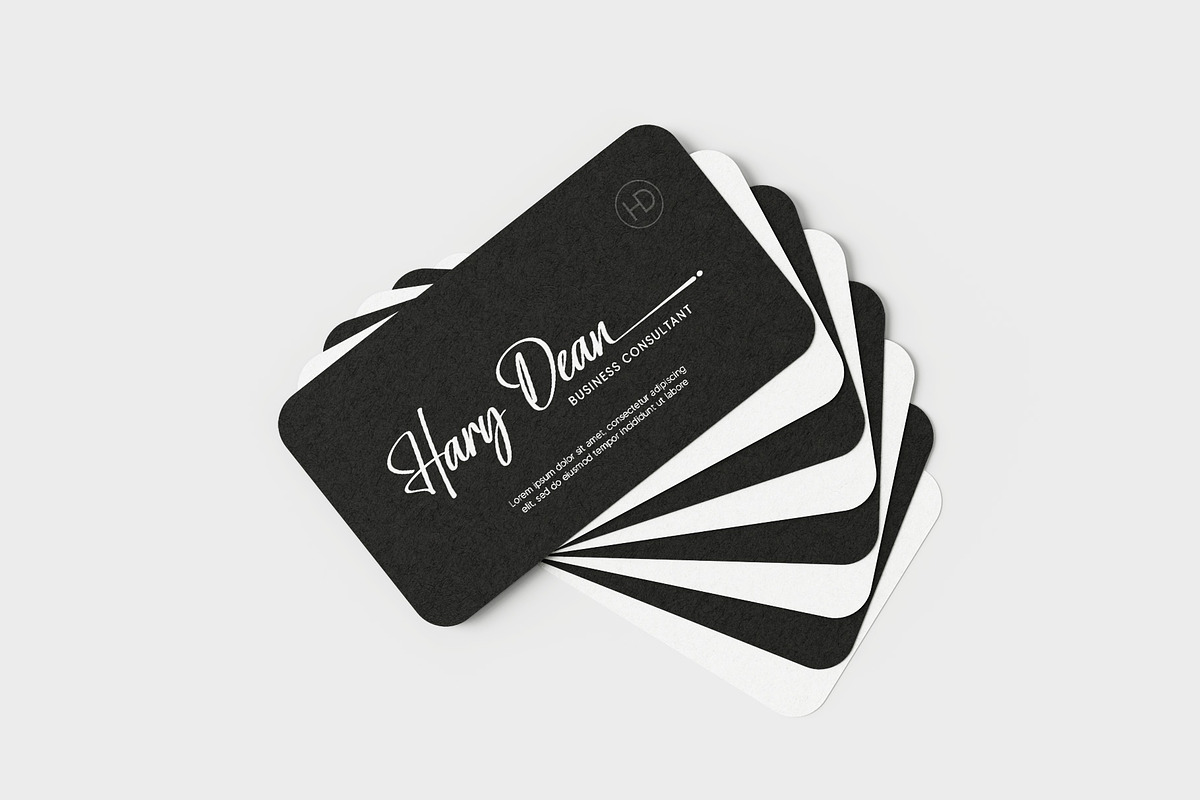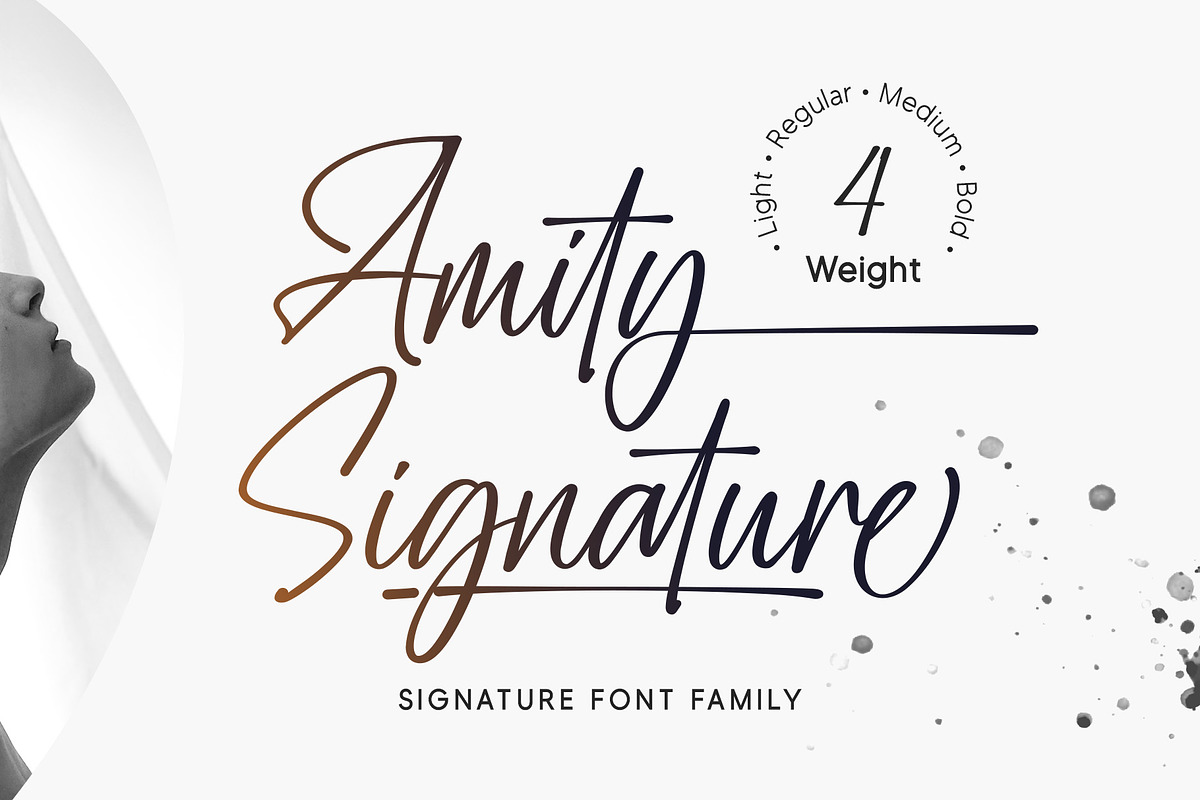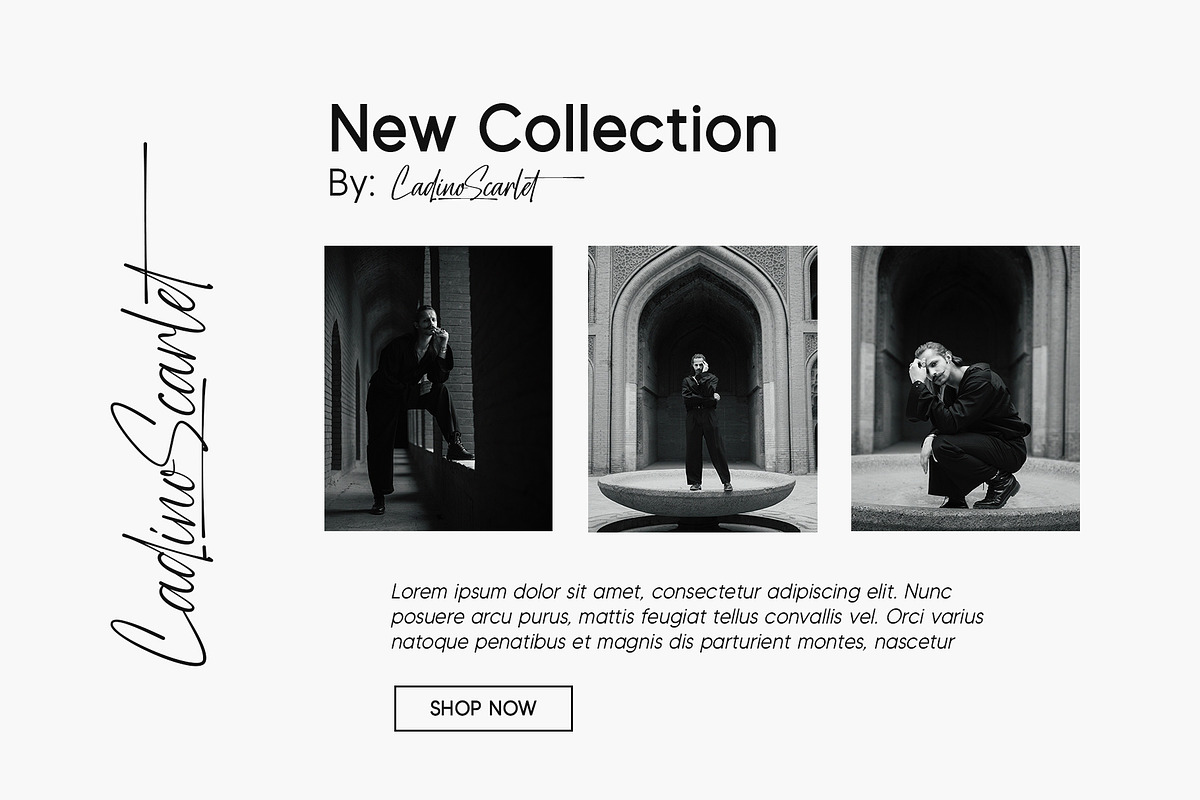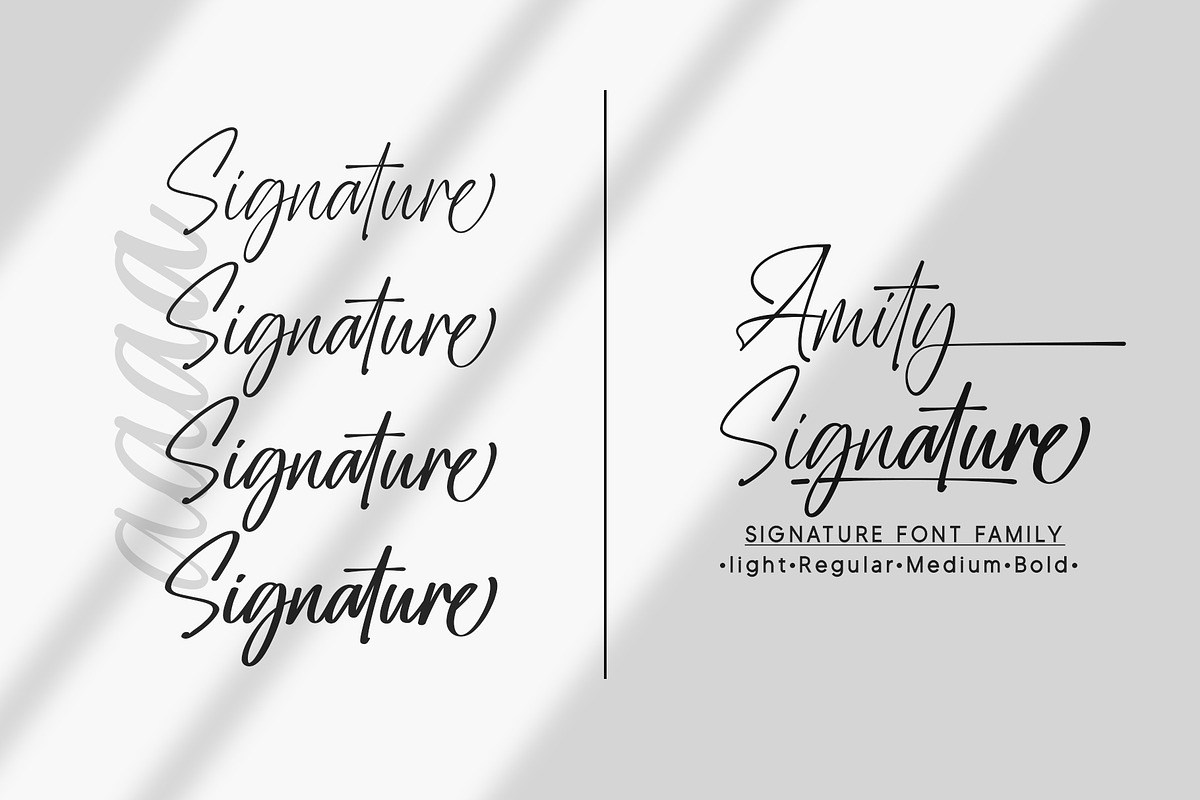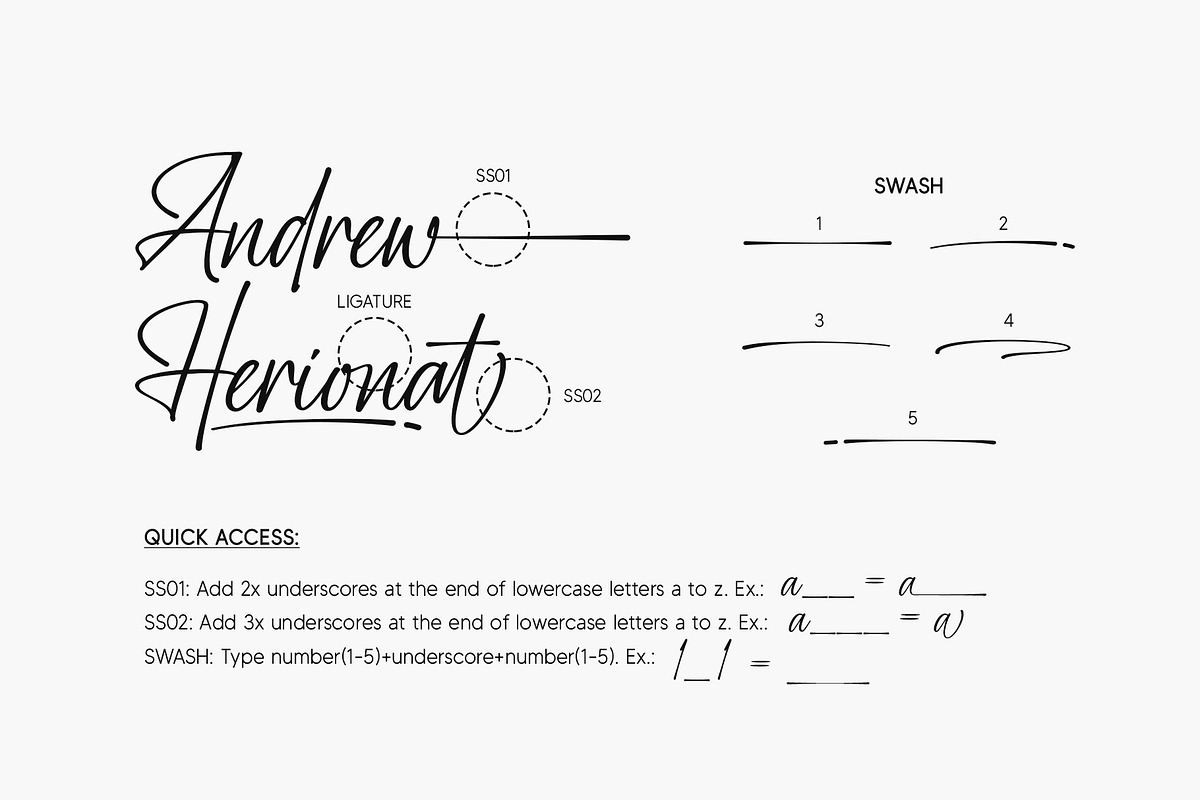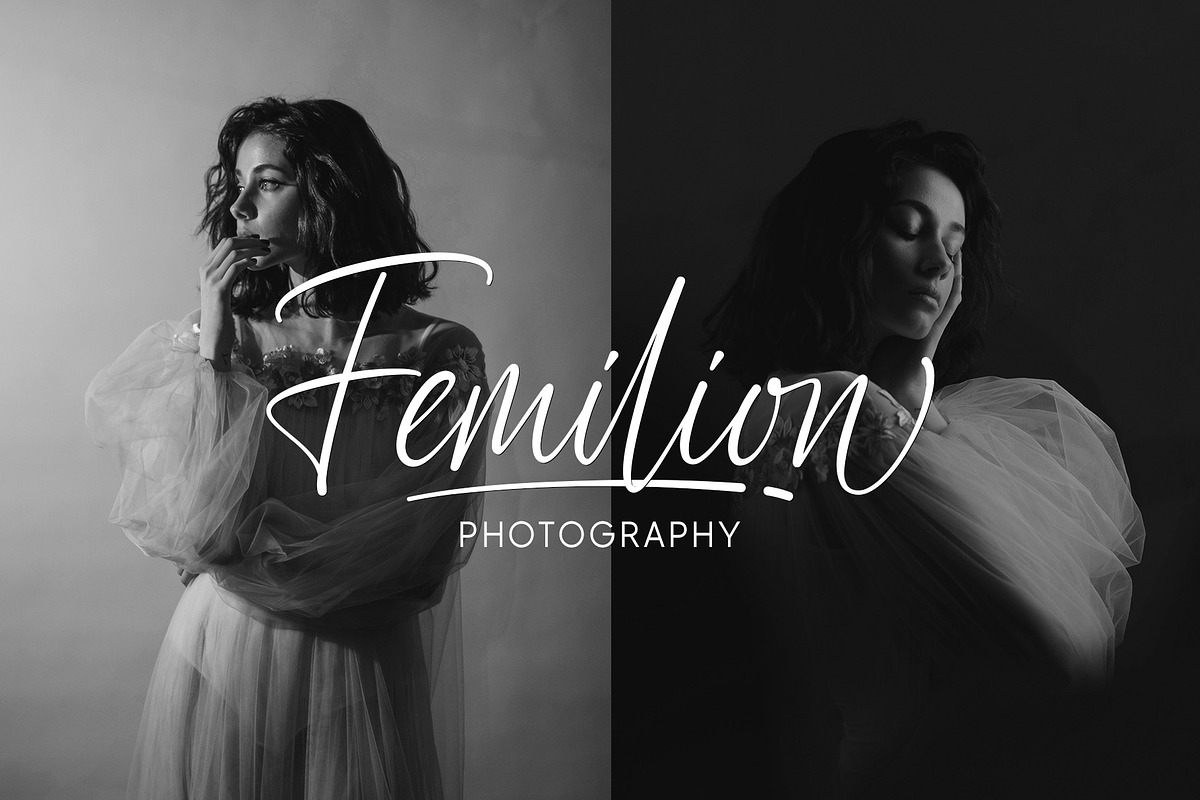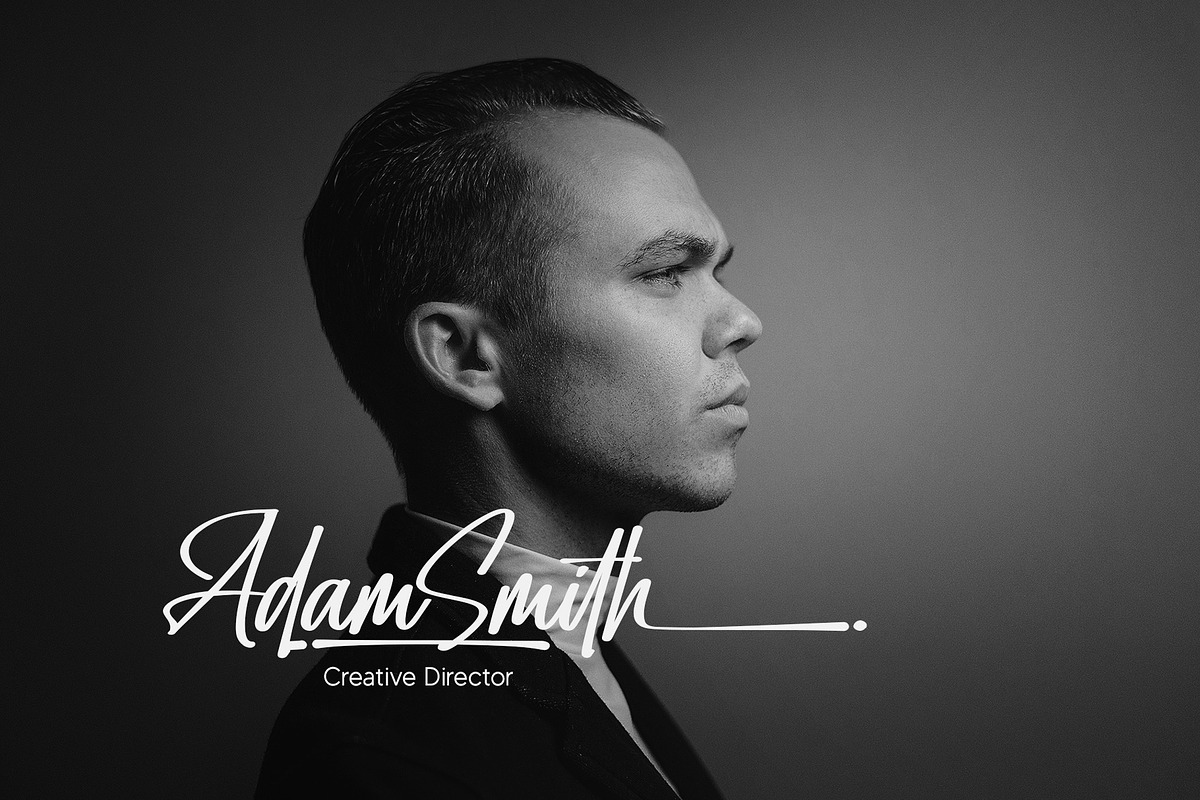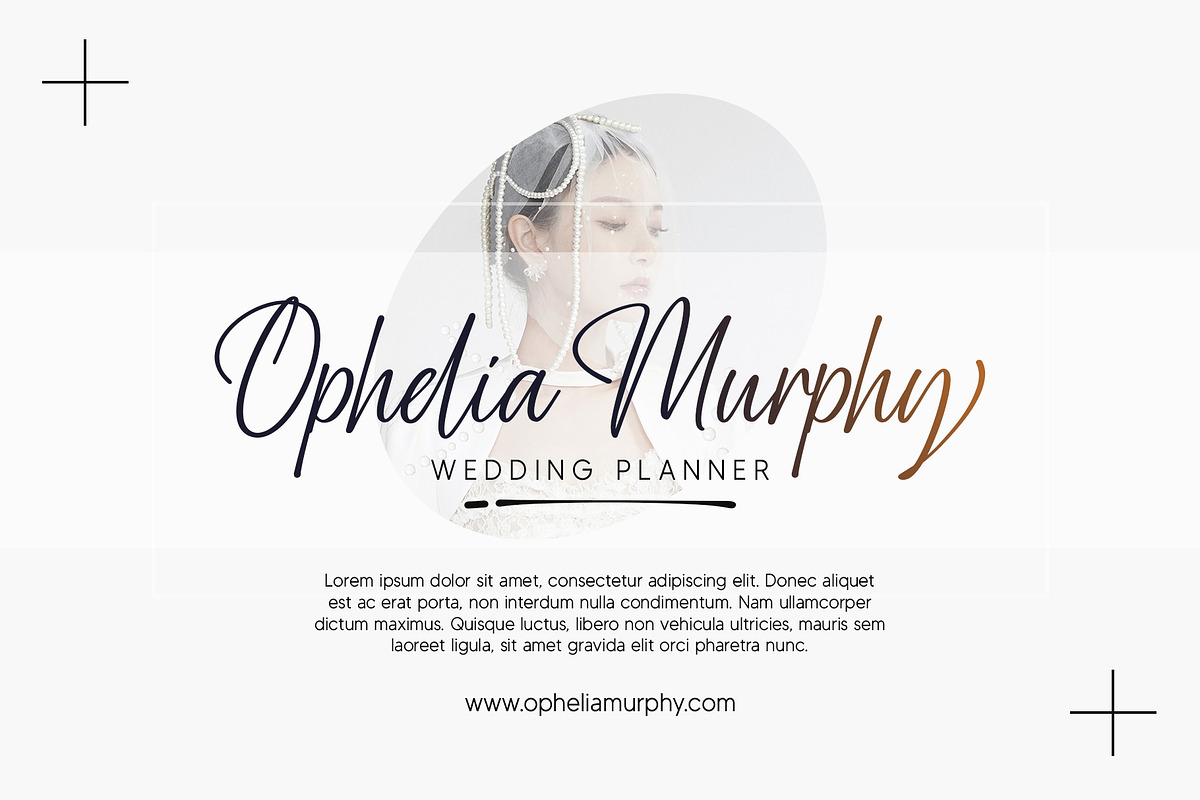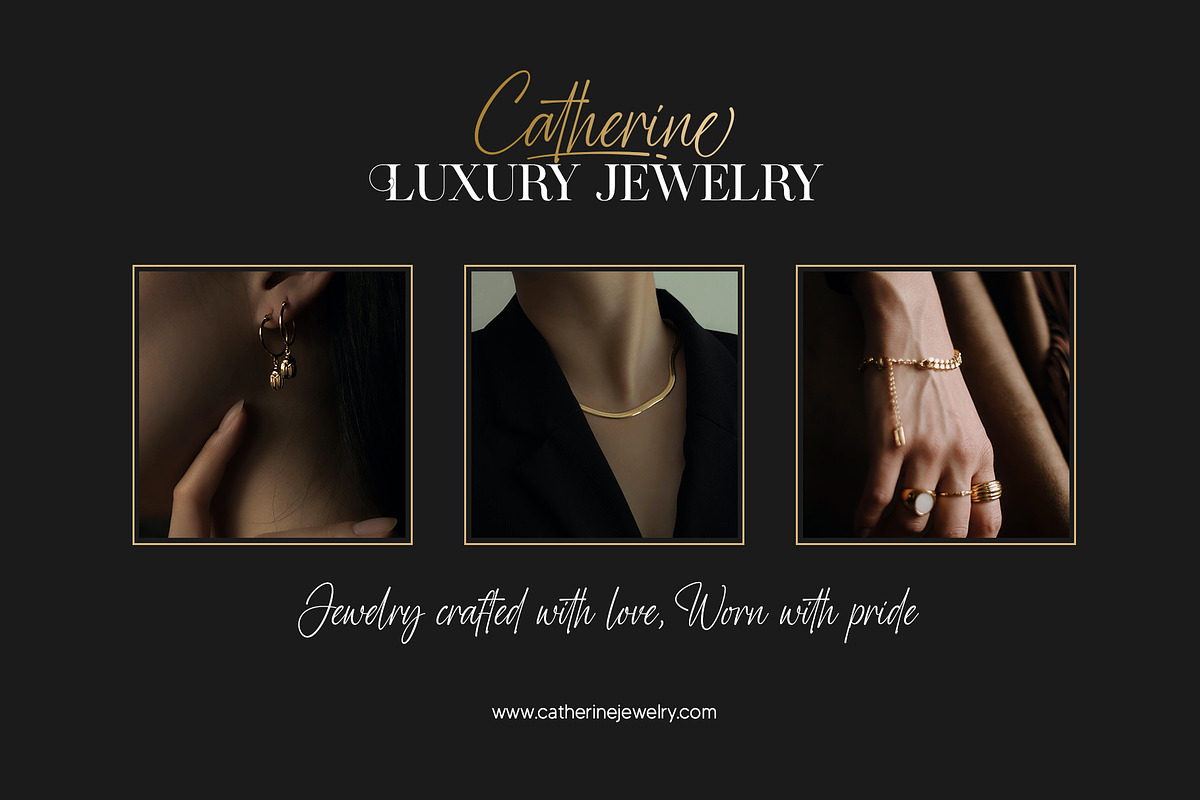
Amity | Signature Family
Amity Signature is a stylish and versatile font family featuring four distinct weights: Light, Regular, Medium, and Bold. This collection offers an elegant impression and flexibility for all design needs, such as logos, branding, signatures, posters, labels, product packaging, invitation designs, and more
- Stylistic Set
- SS01: Add 2x underscore at the end of lowercase letters a to z. Example: a__
- SS02: Add 3x underscore at the end of lowercase letters a to z. Example: a___
- Swash: Add number (1–5) + underscore + number (1–5) Example: 1_1, 2_2, 3_3, 4_4, 5_5